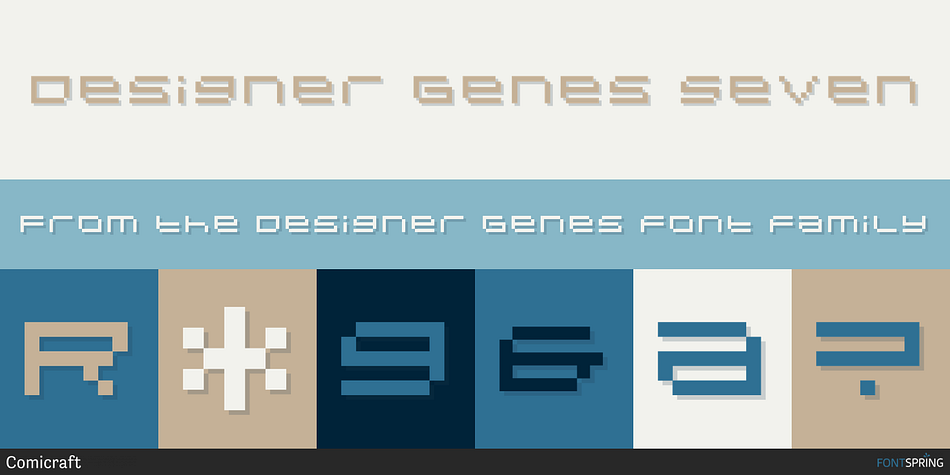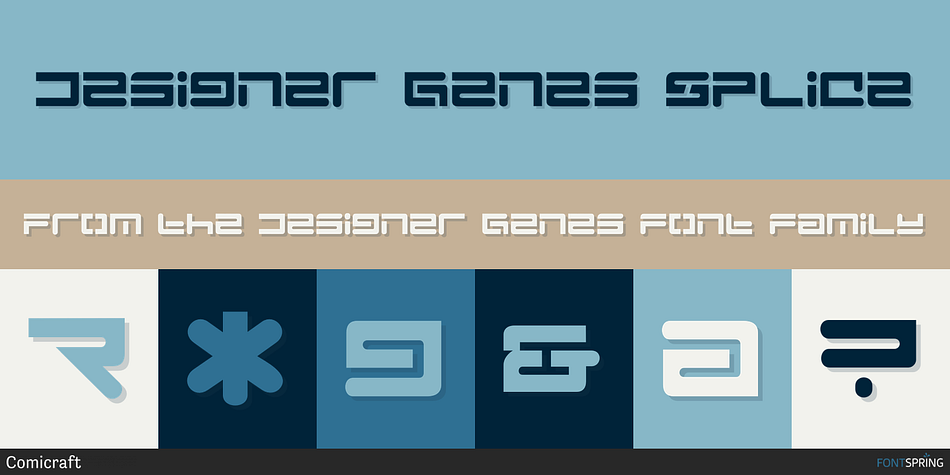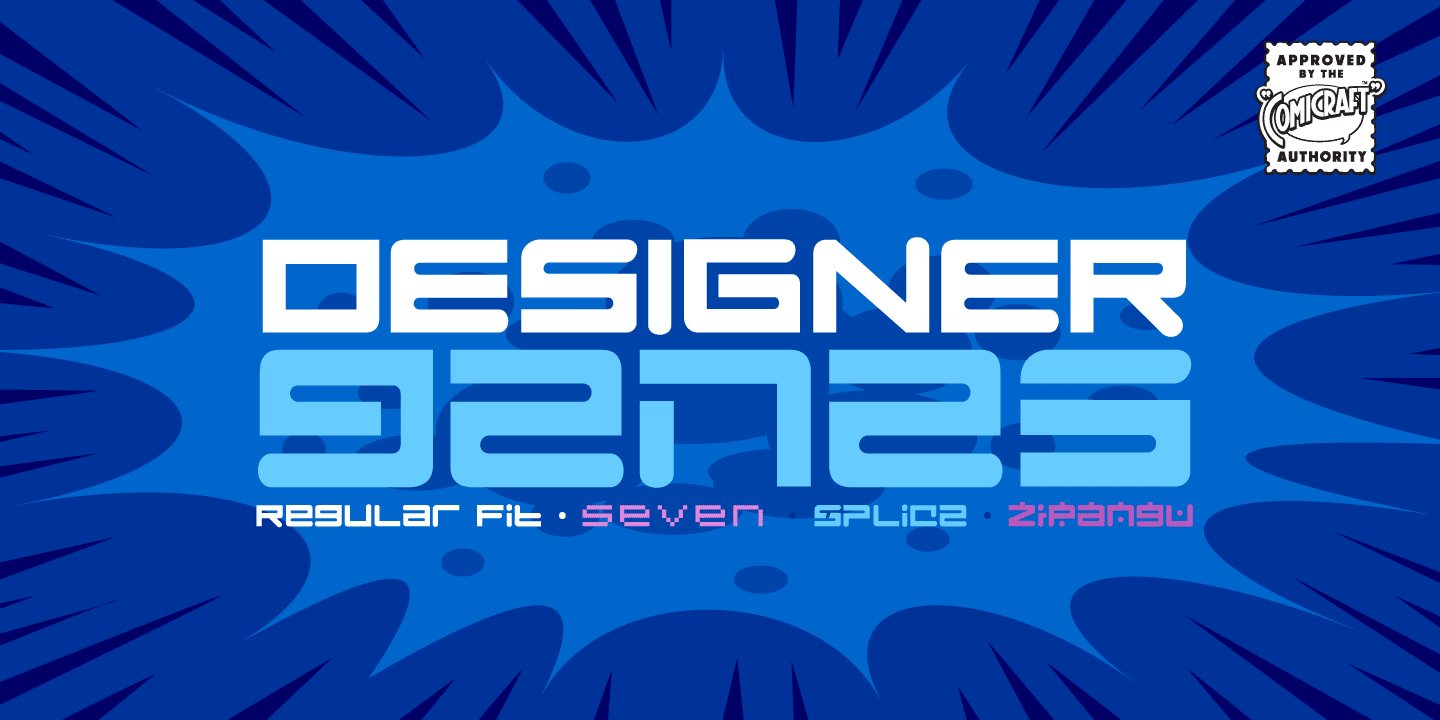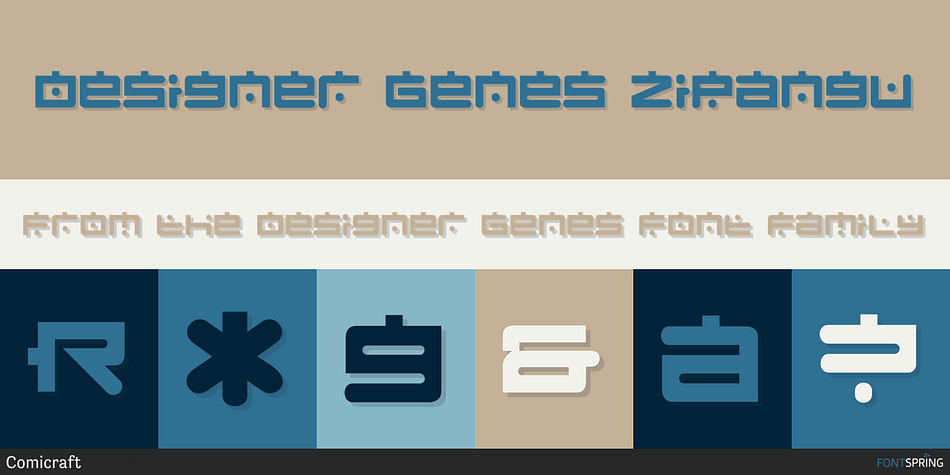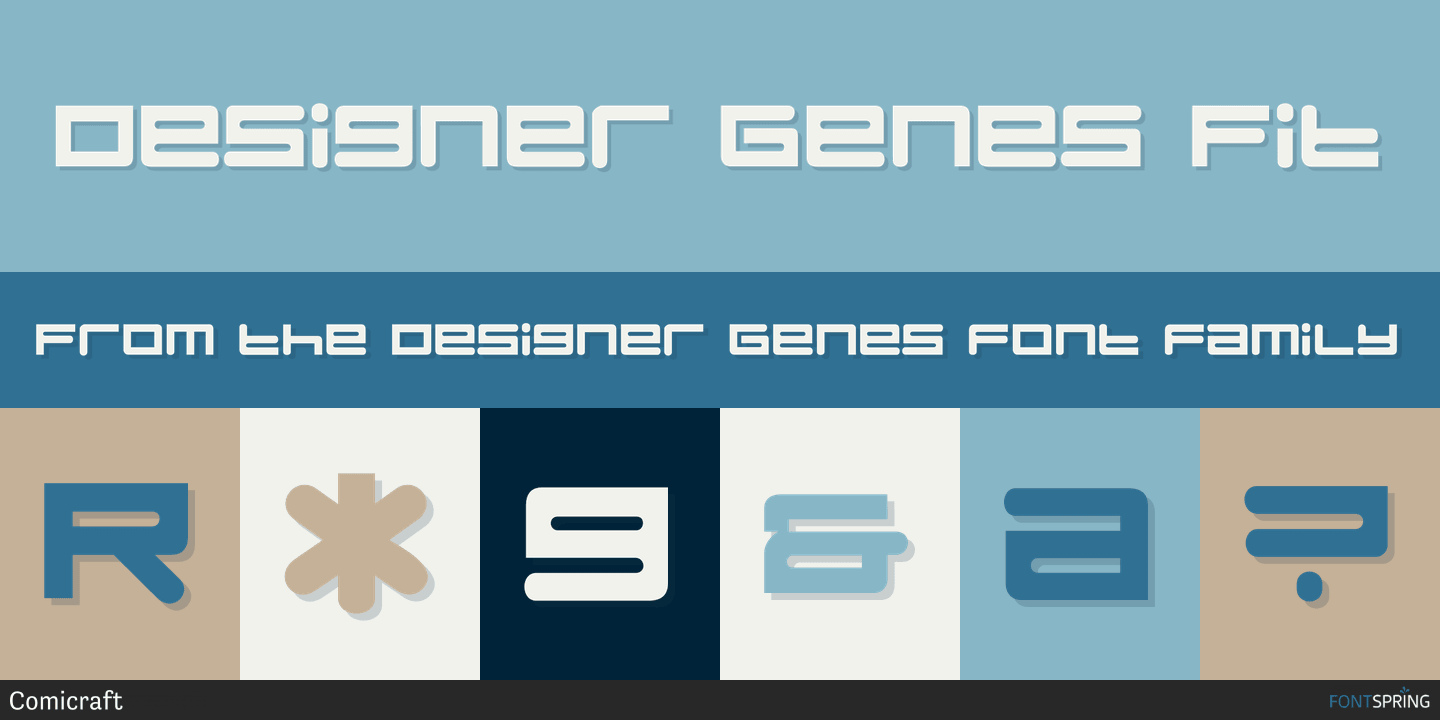
Designed by John Roshell, Designer Genes is a display and pixel font family. This typeface has four styles and was published by Comicraft.
After eleven years and millions of character combinations, scientists at the Comicraft Alphabet Genome research facility in the Mojave Desert, under the direction of the genetartist known only as ’Ladronn,’ have finally determined the DNA sequence responsible for ensuring a good eye for design. DESIGNERGENES has been modified by our genetic engineers to guarantee high performance display lettering every time. Thanks to the selfless sacrifice of Comicraft volunteers, various mutations of this font have been thoroughly tested in the pages of UNCANNY X-MEN, NEW X-MEN and HIP FLASK: UNNATURAL SELECTION and can now be introduced to human society at large.